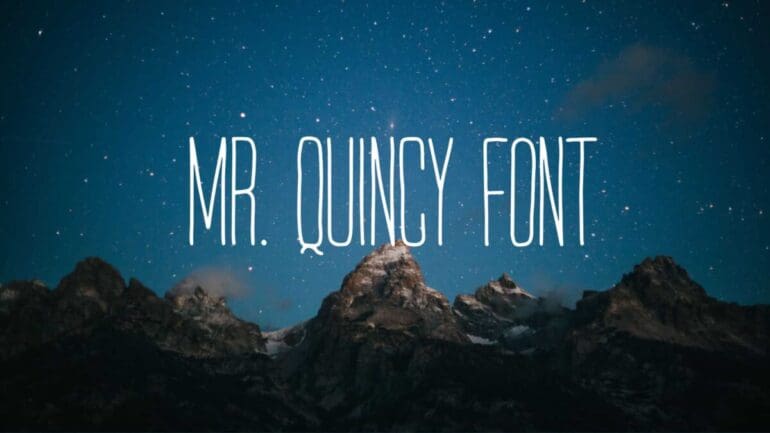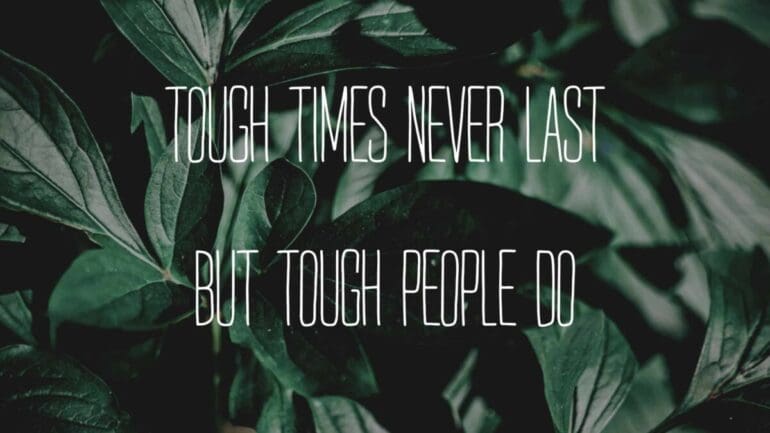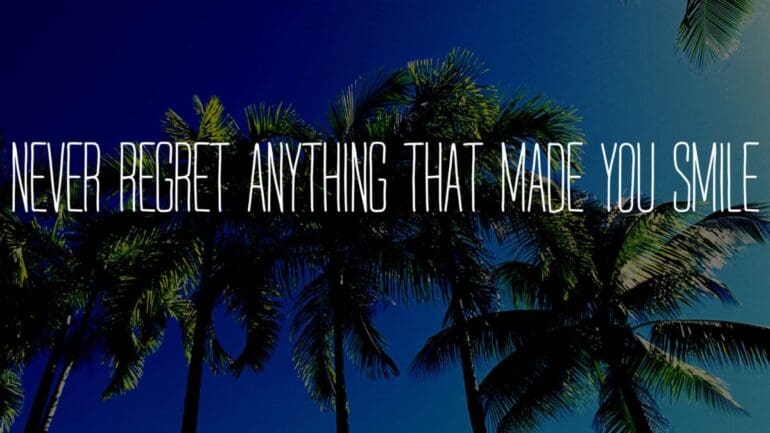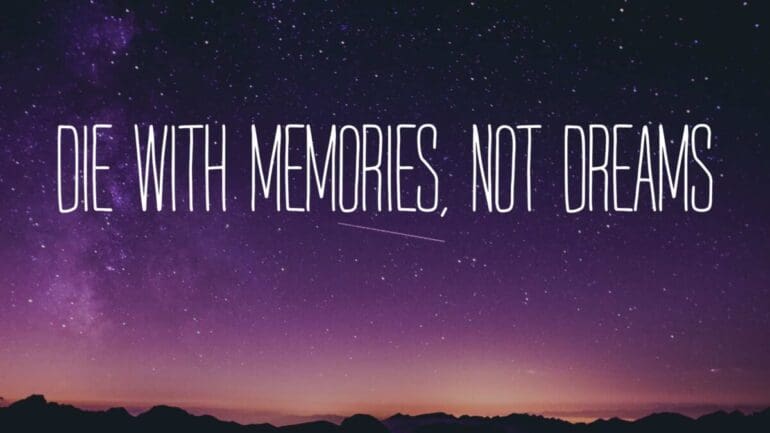
Mr Quincy Font
Mr. Quincy font. This is a handcrafted typeface that comes with extended features and a huge stylish character set that are very suitable for any type of design project. This Handwritten Font was designed by Fontforestry that is a notable typefaces designer. This is a free quirky handcrafted typeface that contains some decorative doodles too in this typeface.